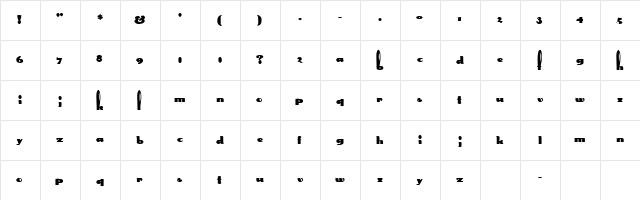
Rabbit Regular
Design Context for Rabbit Typeface
Rabbit is a composed and adaptable typeface that performs quietly and consistently across a wide range of design contexts.